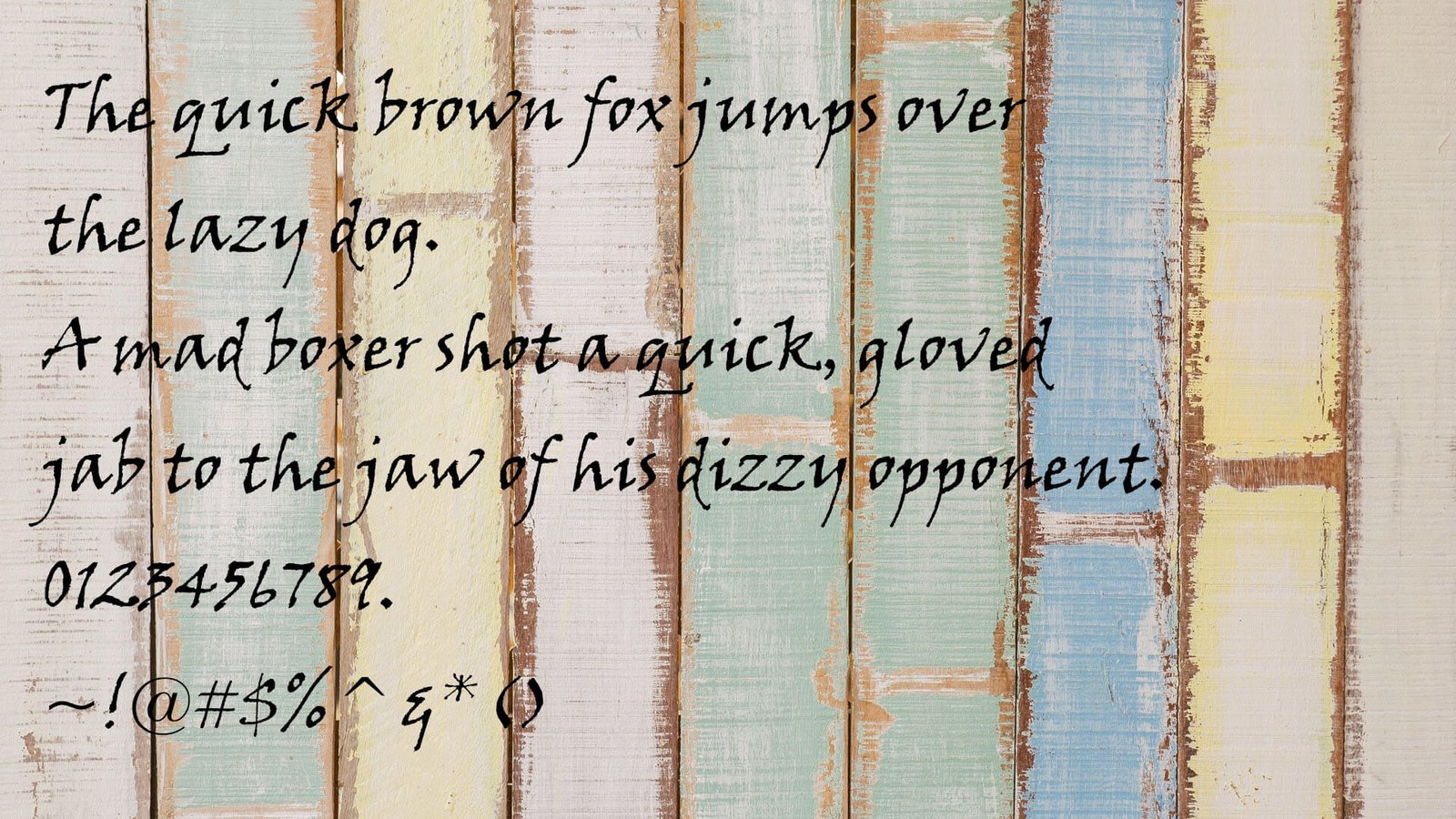
John Viner one of the famous British typeface designers created the ITC Viner Hand font. In the late 1940s, Viner learned about brush lettering art. At that time he was working for the posters and art producer firm.
He also worked for the other art studio as a designer. Then he decided to design a handwritten font and named it Viner Hand. Then it was firstly published by ITC (International Typeface Corporation). Later Microsoft Corporation owns the copyright for this font in 1996.
| Name | Viner Hand ITC Font |
| Designer | John Viner |
| Type | Script |